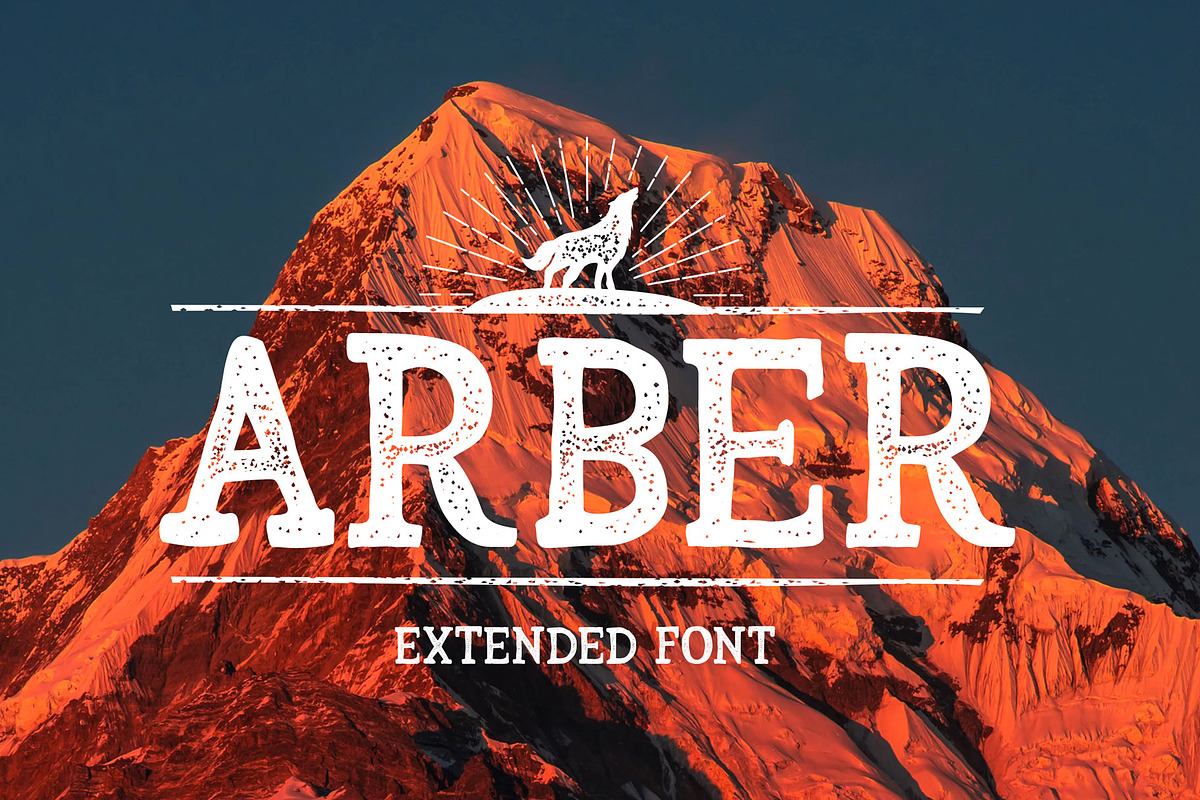
Arber Extended Vintage Font Free Download
The Arber Extended Vintage Font Free Download is a classic and bold typeface that channels the charm of vintage typography with an extended design. Perfect for retro branding, signage, packaging, posters, and any project that demands a strong, nostalgic look, this font adds a timeless yet modern flair to your designs.
With its wide, clean lines and vintage-inspired style, Arber Extended provides excellent readability while maintaining a stylish, retro vibe. It includes uppercase and lowercase letters, numbers, punctuation, and multilingual support, making it versatile for a wide range of creative applications.